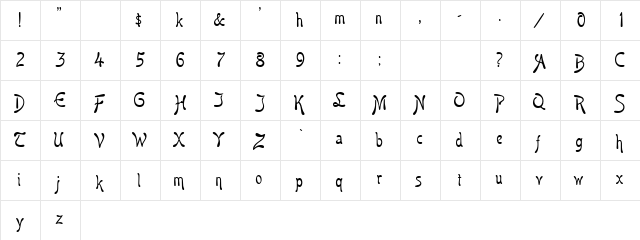
Scroll Script Regular
Design Context for Scroll Script Typeface
Scroll Script flows with the natural rhythm of handwritten lettering, making it ideal for designs that call for warmth and personal expression.
Font Pairing: Combine Scroll Script with a simple geometric sans for maximum contrast — the tension between flowing curves and clean structure is a classic typographic pairing.
Pro Tip: Use Scroll Script for short runs of text — names, titles, or taglines. Extended body copy in script faces tires the eye quickly.